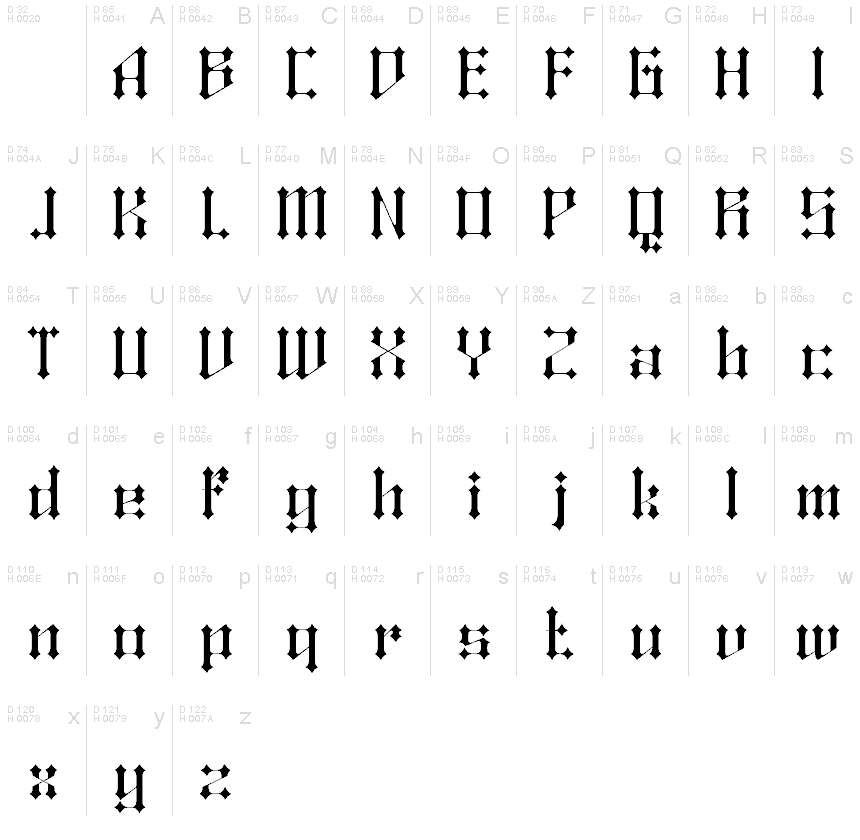
CS Colapse Regular Demo
CS Colapse font by Craft Supply Co. is an elaborate and decorative modern gothic-inspired typeface taking elements from blackletter calligraphy. The experience of the font highlights a ceremonial theme where some formal applications could greatly benefit both instantly and in the long term.